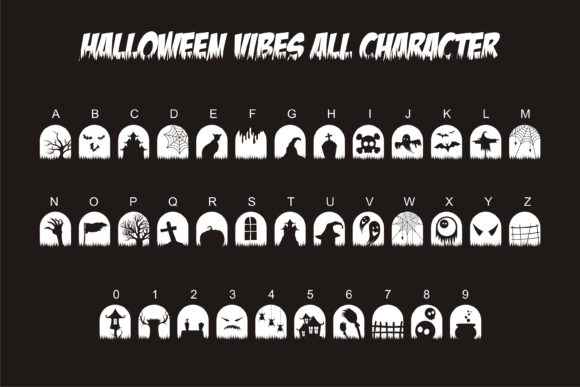
Unleash the Spookiness: Introducing Halloween Vibes Font
As the spookiest time of the year approaches, designers and crafters are on the lookout for fonts that can add a touch of eeriness and excitement to their creations. If you’re searching for a font that can bring the Halloween spirit to life, look no further than Halloween Vibes Font. This cool, dramatic, and spooky dingbats font is an incredible asset to any font library, and we’re excited to dive into its features and benefits.
What is Halloween Vibes Font?
Halloween Vibes Font is a unique and versatile dingbats font that is specifically designed to capture the essence of Halloween. With its bold and eye-catching design, this font is perfect for creating spooky and dramatic designs that are sure to leave a lasting impression. Whether you’re working on a Halloween-themed project or simply want to add a touch of spookiness to your designs, Halloween Vibes Font is the perfect choice.
Key Features of Halloween Vibes Font
So, what makes Halloween Vibes Font so special? Here are some of its key features:
- Cool and Dramatic Design: Halloween Vibes Font boasts a bold and dramatic design that is sure to grab attention. Its unique and eye-catching style makes it perfect for creating spooky and exciting designs.
- Spooky Dingbats: This font features a range of spooky dingbats that are perfect for adding a touch of Halloween spirit to your designs. From bats and ghosts to pumpkins and skeletons, this font has everything you need to create spooky and fun designs.
- Versatile and Flexible: Halloween Vibes Font is incredibly versatile and can be used for a wide range of design projects. Whether you’re working on a Halloween-themed project or simply want to add a touch of spookiness to your designs, this font is the perfect choice.
Benefits of Using Halloween Vibes Font
So, why should you choose Halloween Vibes Font for your design projects? Here are some of the benefits of using this amazing font:
- Add a Touch of Spookiness: With Halloween Vibes Font, you can add a touch of spookiness to your designs and create projects that are sure to leave a lasting impression.
- Stand Out from the Crowd: This font is unique and eye-catching, making it the perfect choice for designers who want to stand out from the crowd and create designs that are truly memorable.
- Perfect for Halloween-themed Projects: Whether you’re working on a Halloween-themed project or simply want to create designs that capture the spirit of Halloween, this font is the perfect choice.
- Incredible Value: Halloween Vibes Font is an incredible asset to any font library, and its versatility and flexibility make it an excellent value for designers and crafters.
Halloween Vibes Font is a cool, dramatic, and spooky dingbats font that is perfect for designers and crafters who want to add a touch of Halloween spirit to their creations. With its bold and eye-catching design, versatile and flexible features, and ease of use, this font is an incredible asset to any font library. Whether you’re working on a Halloween-themed project or simply want to create designs that capture the spirit of Halloween, Halloween Vibes Font is the perfect choice. So why wait? Download Halloween Vibes Font today and start creating spooky and exciting designs that are sure to leave a lasting impression.